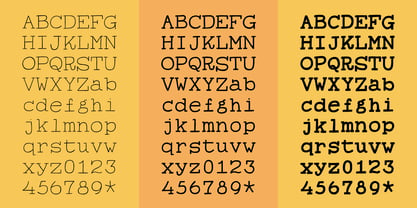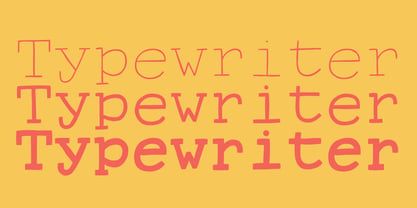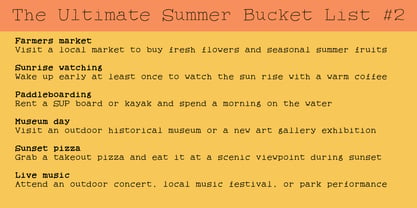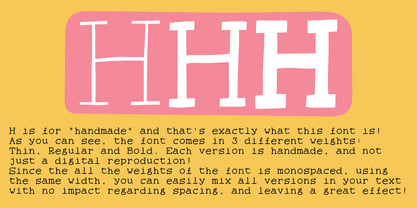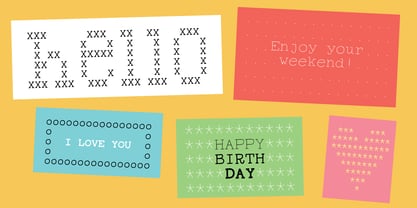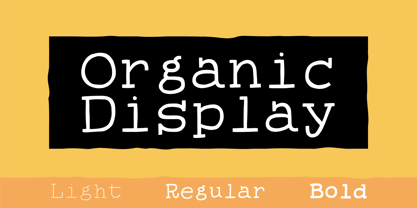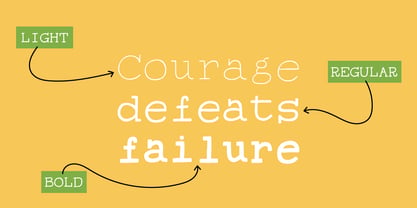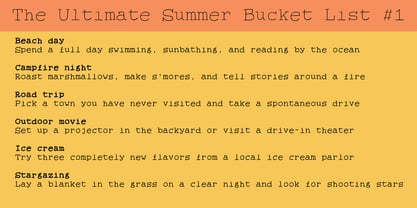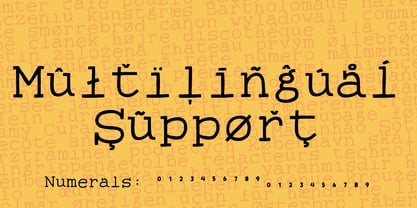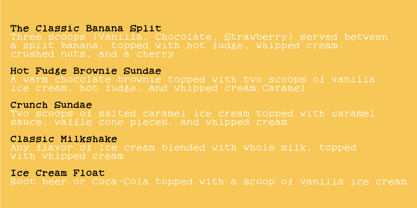
Organic Display
The Organic Display Font Family was designed by Jakob Fischer and published by Bogstav. Organic Display contains 3 styles and family package options. More about this family
Organic Display is obviously a typewriter font. Well, it has the well known characteristic of a typewriter font, but is all handmade and has 3 different versions: Light, Regular and Bold.
All of the 3 versions are all handmade - meaning, all the versions are drawn, rather than digitally computerised.
Each font version shares the same width, which makes it possible to write text swapping between these 3 versions without loosing the monospaced look.
When typed at smaller sizes you won’t really recognise the handmade details - but at a larger scale, this is pretty clear.
I suggest you use Organic Display to write a loveletter, a romantic poem, a dramatic play or at least something that urges a handmade, yet steady look.
Features:
Subscript and Superscript
Normally typedesigners resizes the numbers to make Subscript and Superscript. I do that on occasions as well, but in this case I have drawn the numbers, instead of resizing them. That way they appear more natural, organic and unique.
Fractions are nice having available. You skip the work of resizing the numbers yourself, because I have done all the work for you!
Multilingual support
This font comes with extensive multilingual support, and supports loads of different languages.